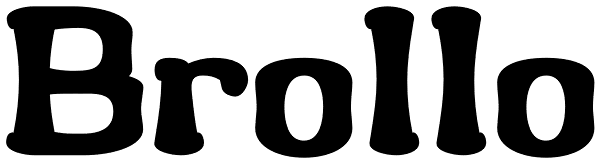
Brollo
Brollo is a chunky display face full of the spirit of the 60s and 70s. Its bold character makes it ideal for poster work, and for anywhere that the point really needs to be driven home. The letter forms have been designed to work well either used...